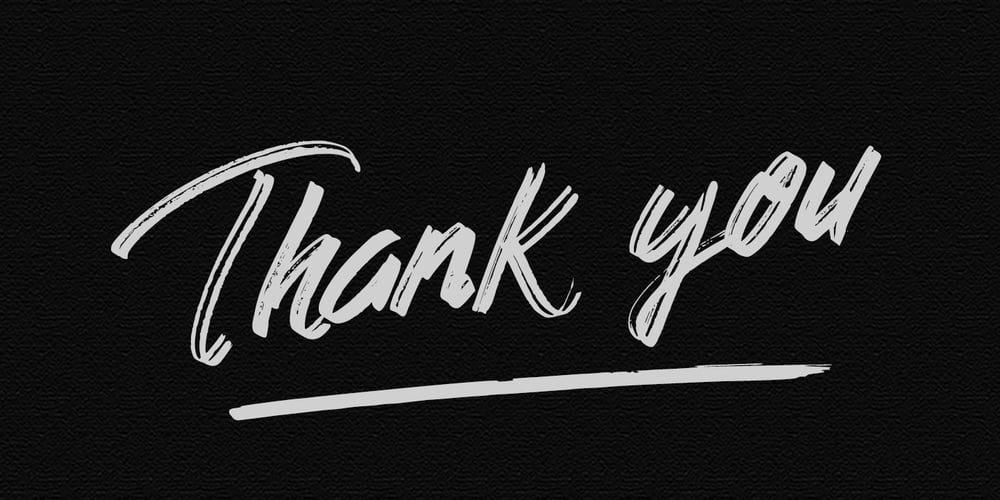
Knighthood Font Family was designed by Thomas Aradea and published by Letterara. Knighthood contains 2 styles and family package options. Knighthood is a elegant and masculin font Brush. with extra attention to quick strokes and sharp details, Knighthood contains uppercase, lowercase and ligature. This font can also be used to show elegance in a wedding and christmas. Grotters is ideal for logos, apparel, wedding, book, t-shirts, hoodies, quotes, youtube, quotte, product packaging, website or anything that needs a typographic turbo-boost and you’ll get a unique swash to accompany the font.